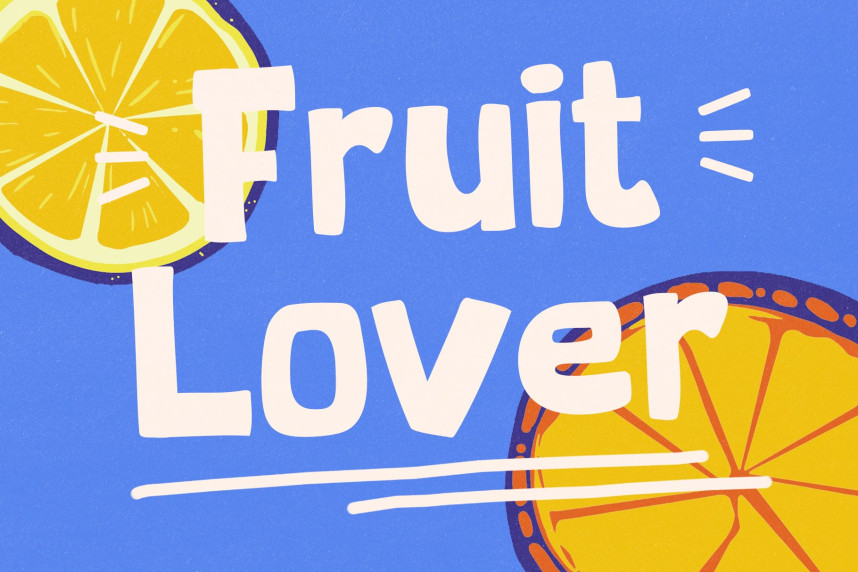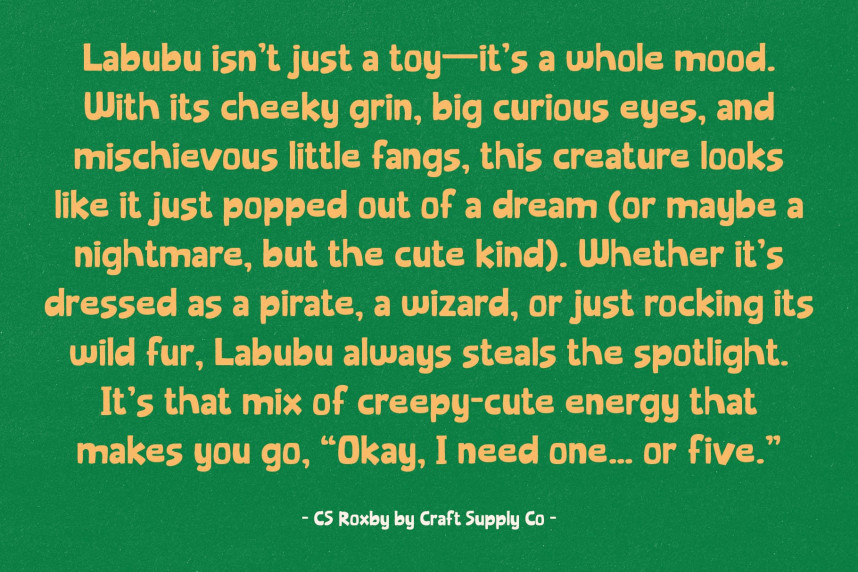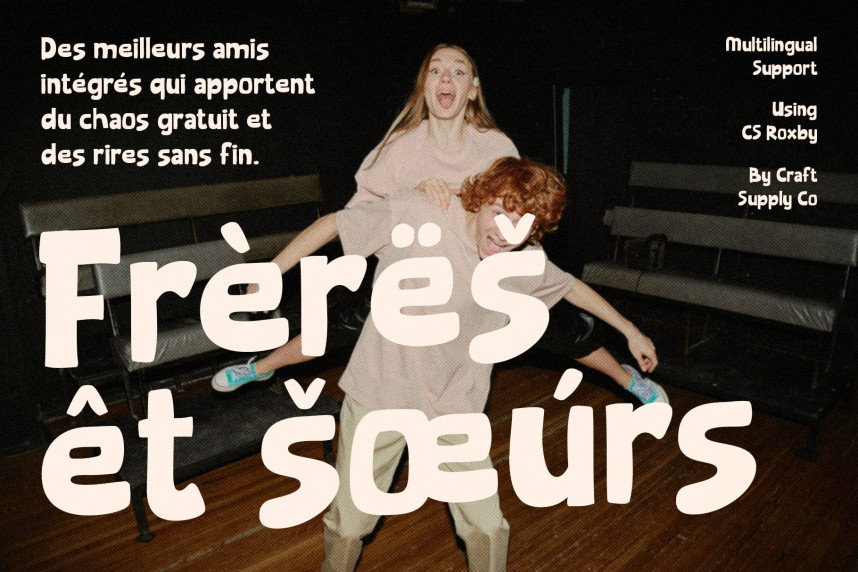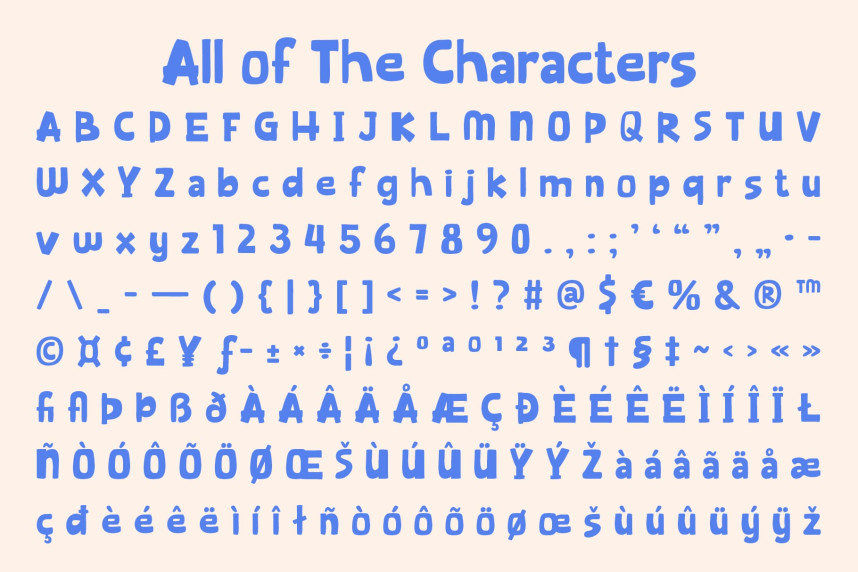
CS Roxby Font
CS Roxby Font captures the essence of playful handwriting with its irregular, hand-drawn strokes. Each character feels spontaneous and unique, giving your designs an authentic, handcrafted personality. This imperfect style is what makes CS Roxby so distinctive and fun to use.
Relaxed and Engaging Design
With its casual yet expressive form, CS Roxby brings a relaxed energy to every project. The font’s playful curves and friendly flow keep designs approachable while still adding a spark of creativity. It’s a typeface that invites joy and engagement.
Perfect for Childlike and Fun Visuals
CS Roxby’s cartoonish style naturally pairs with colorful or soft palettes, enhancing its childlike and cheerful vibe. Whether you’re designing posters, children’s illustrations, or creative branding, this font instantly infuses your work with warmth and playfulness.
Versatile for Branding and More
Beyond kids’ projects, CS Roxby adapts well to logos, social media graphics, and casual branding that want to highlight friendliness and creativity. Its lively hand-drawn quality ensures your designs stand out with originality and charm.